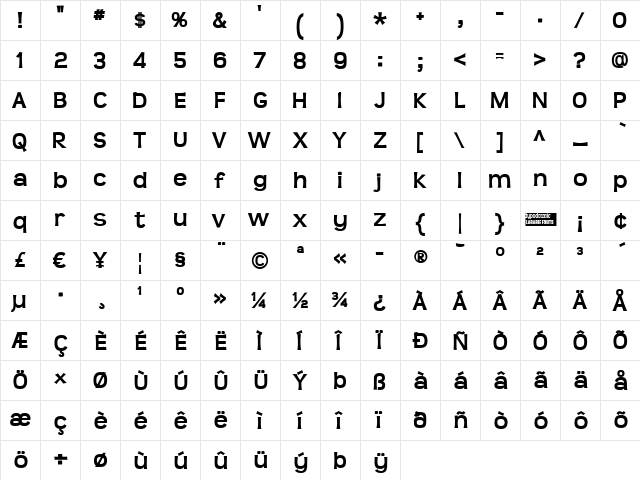
Teen bold
| Foundry | Martin Archer / Ray Larabie |
| Designer | Ray Larabie & Martin Archer |
Design Context for Teen Typeface
Teen takes a measured approach to typography — its balanced proportions and neutral character make it a reliable workhorse for both digital and print work. Its bold stroke weight gives it real presence on the page.